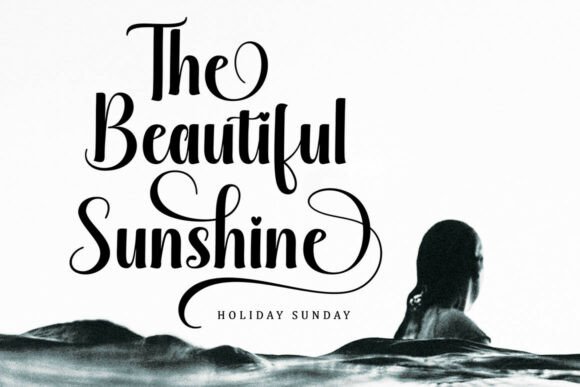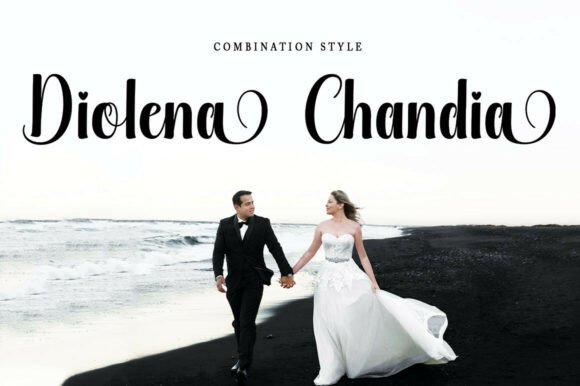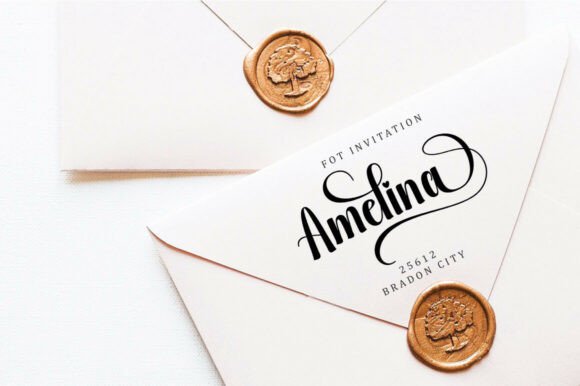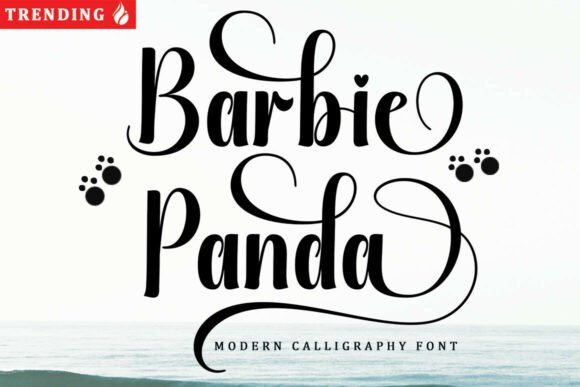
Barbie Panda Font: Free Download Now
Barbie Panda Font – Free Download
Introduction to Barbie Panda Font
Barbie Panda | Modern Calligraphy Font Spread joy and playfulness with Barbie Panda, a whimsical calligraphy font that is as lovable as its name.
πŸ‘€ Author Bung Studio
This typeface features bold, bouncy letterforms and expressive, swirling flourishes, accented by a sweet heart-dotted β€œi ” It is a fantastic choice for nursery decor, children’s apparel branding, pet-themed graphics, and creative greeting cards.
Key Features of Barbie Panda Font
Why Choose Barbie Panda Font?
Barbie Panda Font offers exceptional quality and versatility, making it a valuable addition to your design toolkit. Whether you’re creating for personal projects or commercial use, Barbie Panda Font delivers professional results.